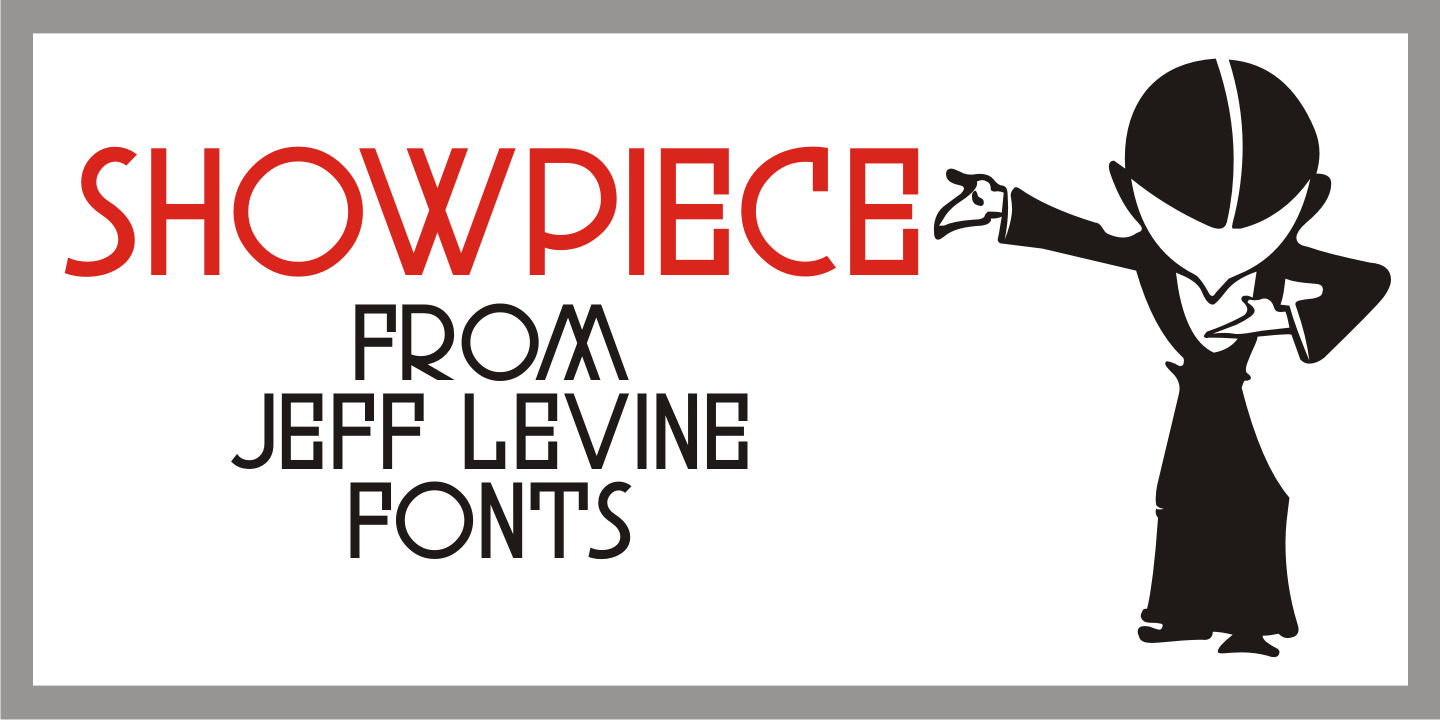
Showpiece
Showpiece JNL was redrawn from the hand lettering for the name and address of a music publisher found on some 1930s-era sheet music. The lettering style has features influenced a bit by both the end of the Art Nouveau period and the beginning of the Art Deco movement.